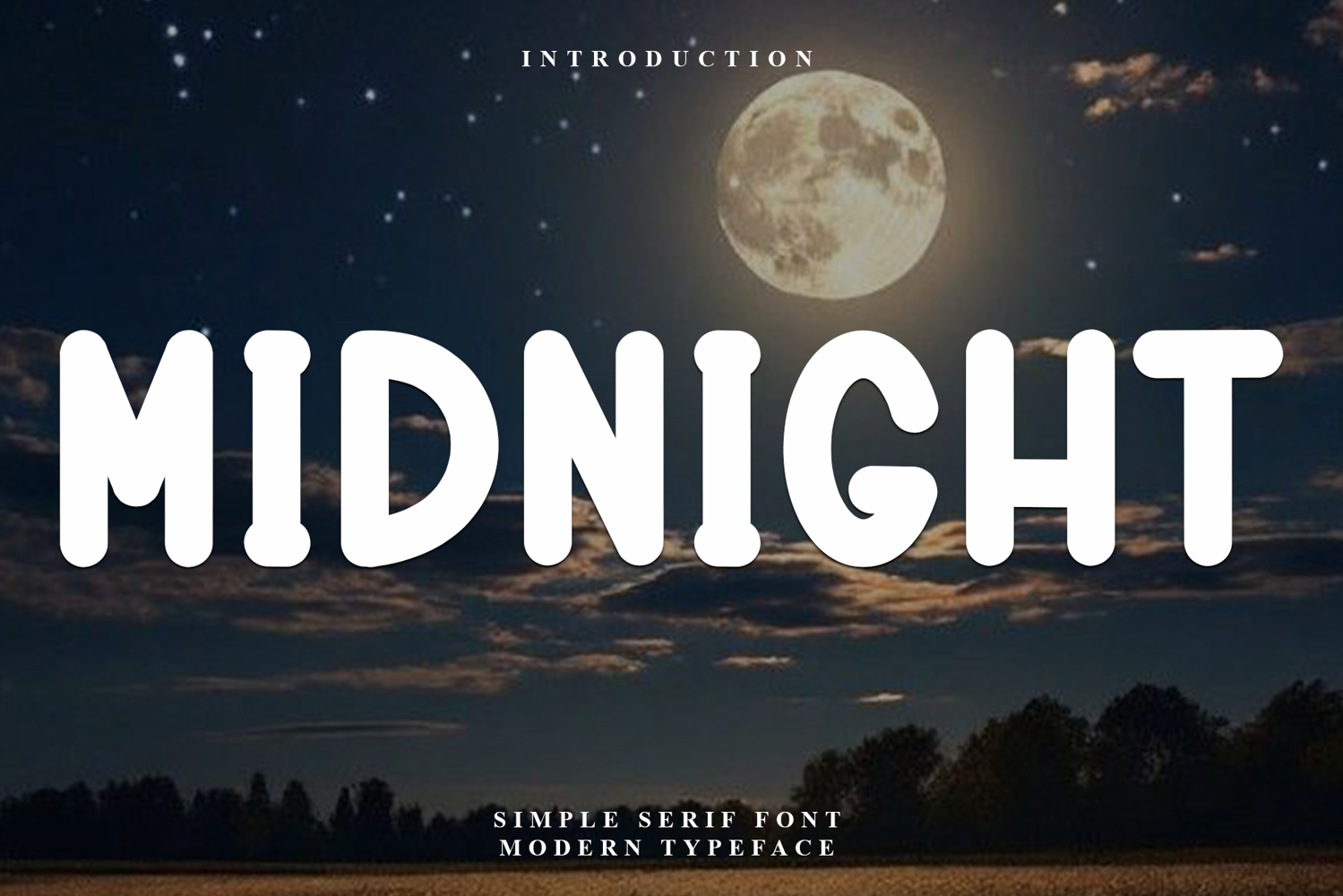
Midnight
Midnight is a beautiful and eye-catching font designed with a soft, unique touch. Its distinctive strokes give it a special character, making it meaningful and versatile for future use. With various characters, it’s perfect for design projects, crafts, and other creative works.